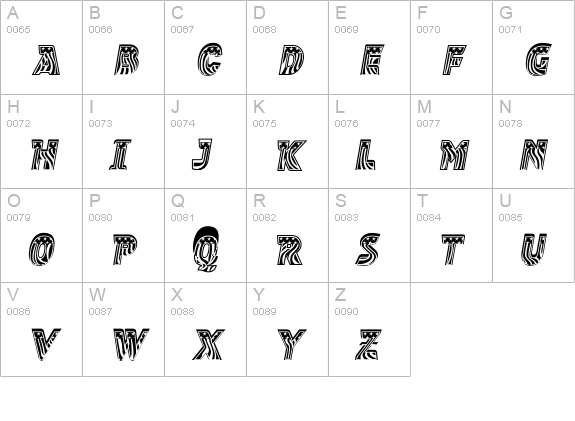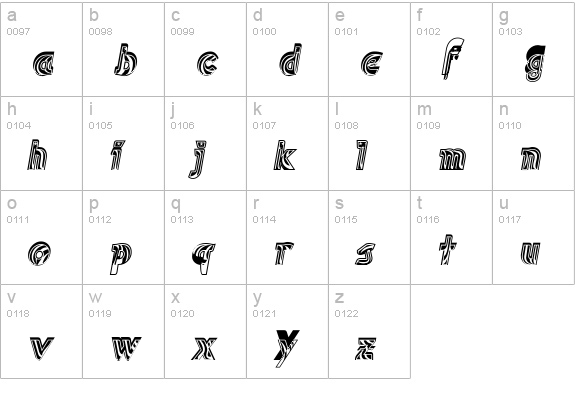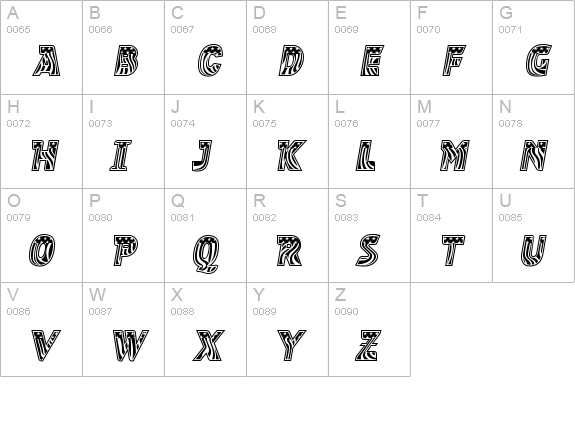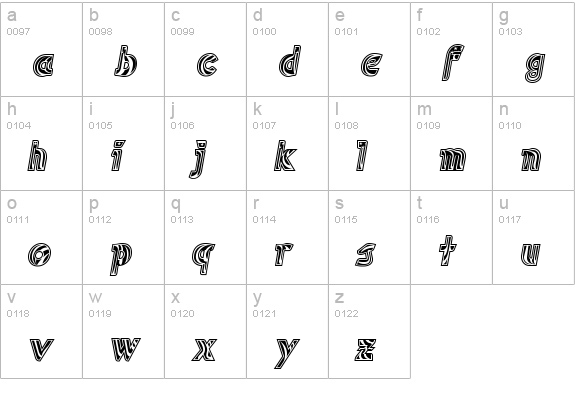
Cuban-SuperDeluxe font is a beautifully crafted typeface that exudes elegance and sophistication. With its sleek lines and stylish curves, this font is perfect for adding a touch of luxury to any design project. Whether you are creating invitations, branding materials, or signage, Cuban-SuperDeluxe font will make your text stand out with its unique charm. The best part? Cuban-SuperDeluxe font is available for free download at FontsMarket.com. You can easily access this stunning font and use it in your projects without any cost. Its versatility and timeless appeal make it a must-have for designers looking to elevate their creations. Don't miss out on this amazing opportunity to enhance your designs with the Cuban-SuperDeluxe font, now available for free at FontsMarket.com.